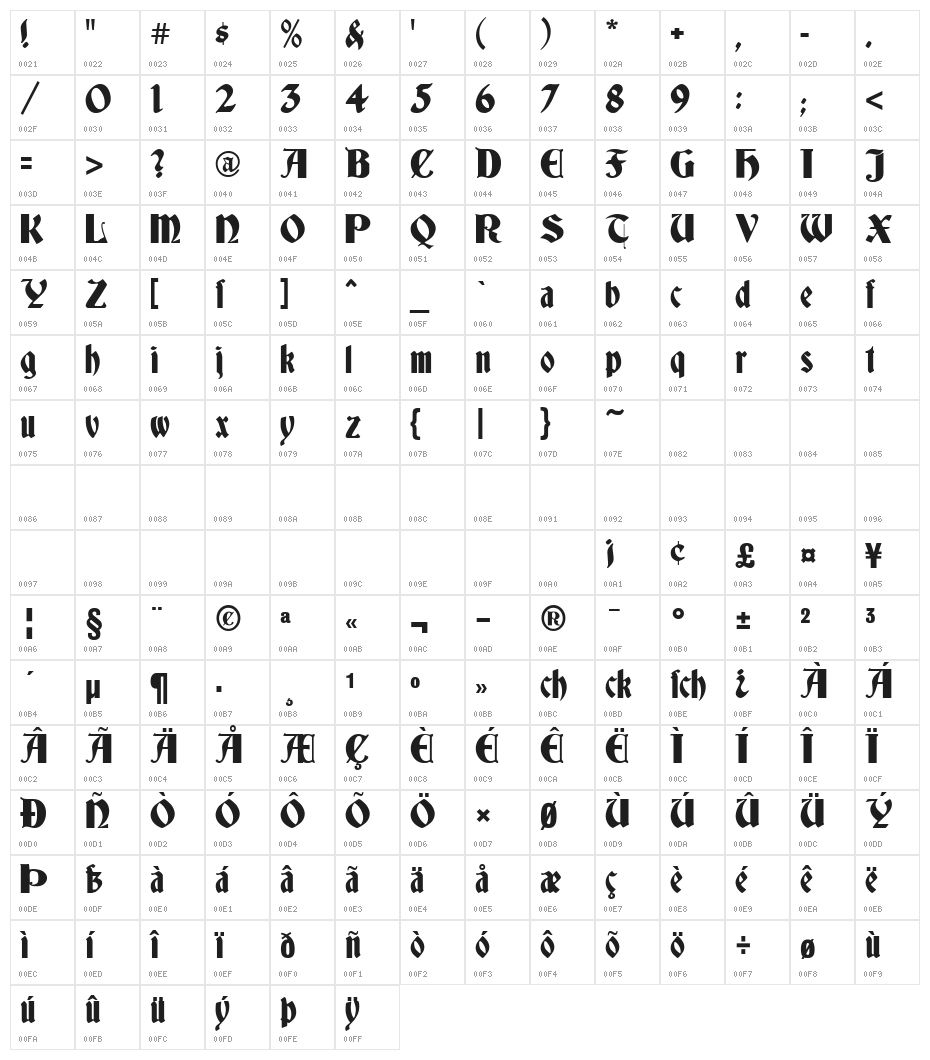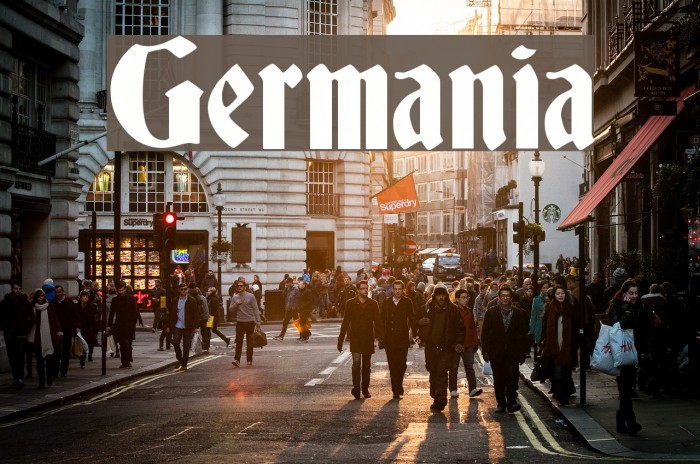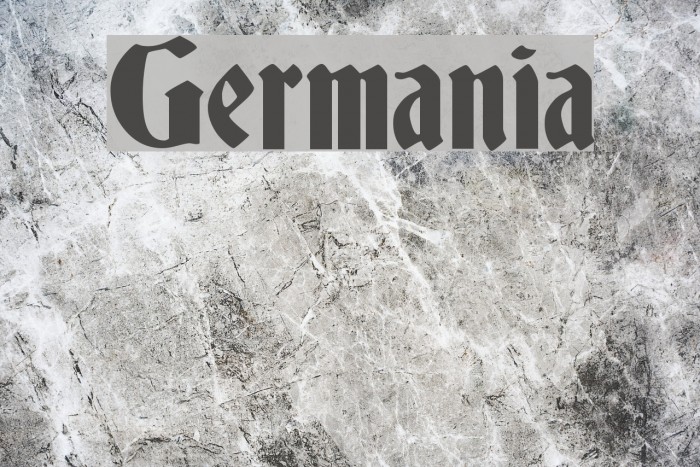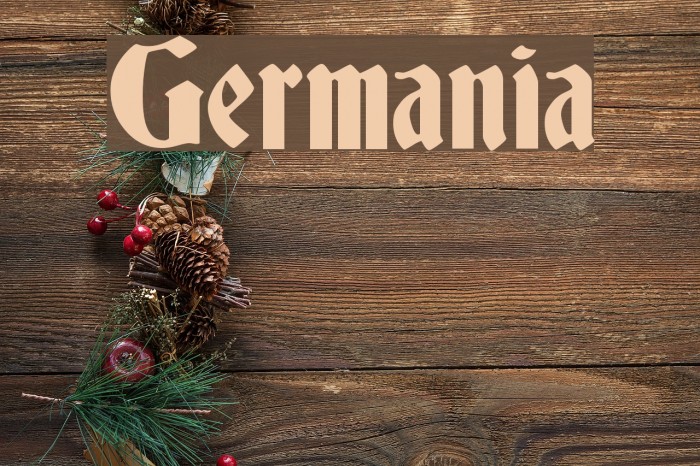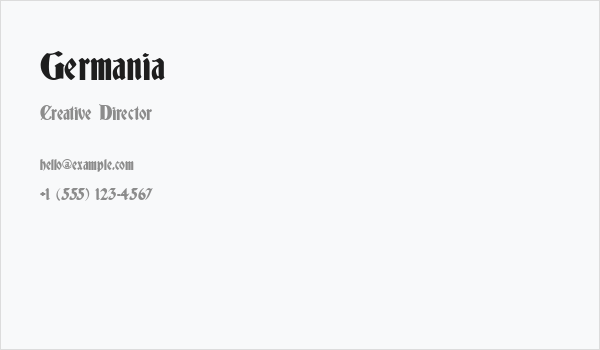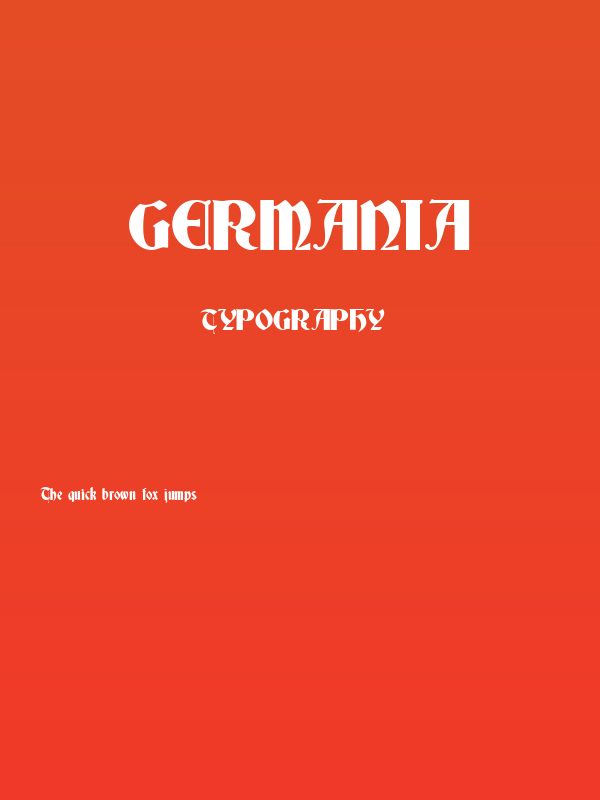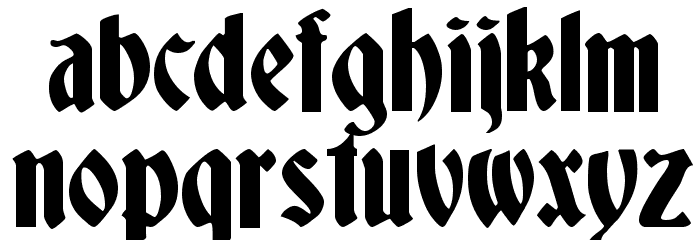
Germania Font
Germania Description
This font exudes a classic and historical aura, reminiscent of traditional Blackletter styles. The characters are bold and striking, with intricate curves and sharp edges that give it a distinct medieval feel. The uppercase letters are particularly ornate, featuring elaborate flourishes that enhance their visual impact. The lowercase letters maintain the same stylistic elements, ensuring consistency throughout the typeface. Numbers and special characters are designed with the same attention to detail, making them seamlessly integrate with the alphabet. This font is ideal for projects that require a touch of elegance and historical significance.
| Use Case | Logos, Headlines, Decorative purposes |
| Proposed Projects | Ideal for historical documents, certificates, book covers, and branding that requires a vintage or medieval touch. |